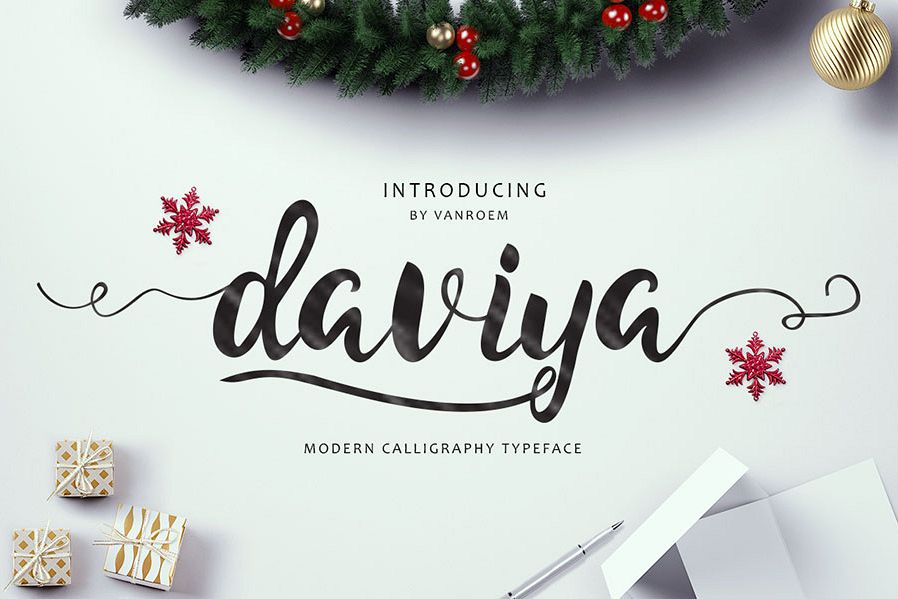
Daviya Script
Daviya.
Daviya script is a hand-inked, font with tight kerning, and a fun, imperfect baseline. It's nice and bold, plus a little gritty - Perfect for creating organic, fluid typography on products, branding, invitations, fliers, posters, and wedding invitation, and more. This font multiple language support, the choice of useful ligatures and more.
Contextual Alternates
Standard ligatures
Unique ligatures
Basic Latin A-Z and a-z
Numbers
Symbols